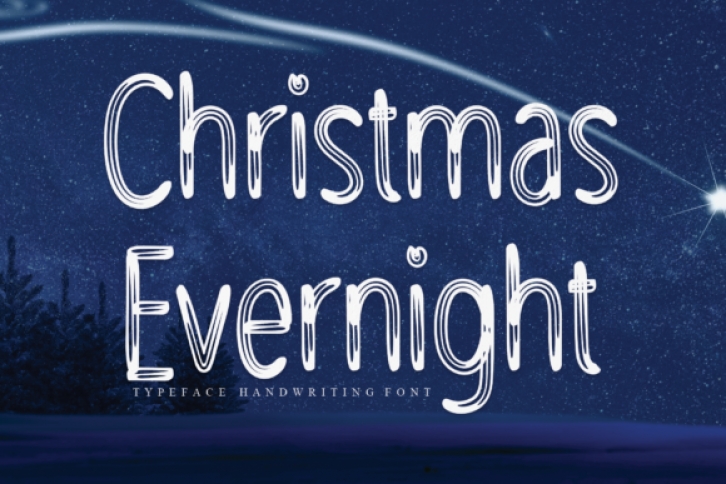
Christmas Evernight is a simple yet gentle and natural handwritten font. This original look will appeal to a wide range of crafty ideas, from letterheads and titles, to stationery.